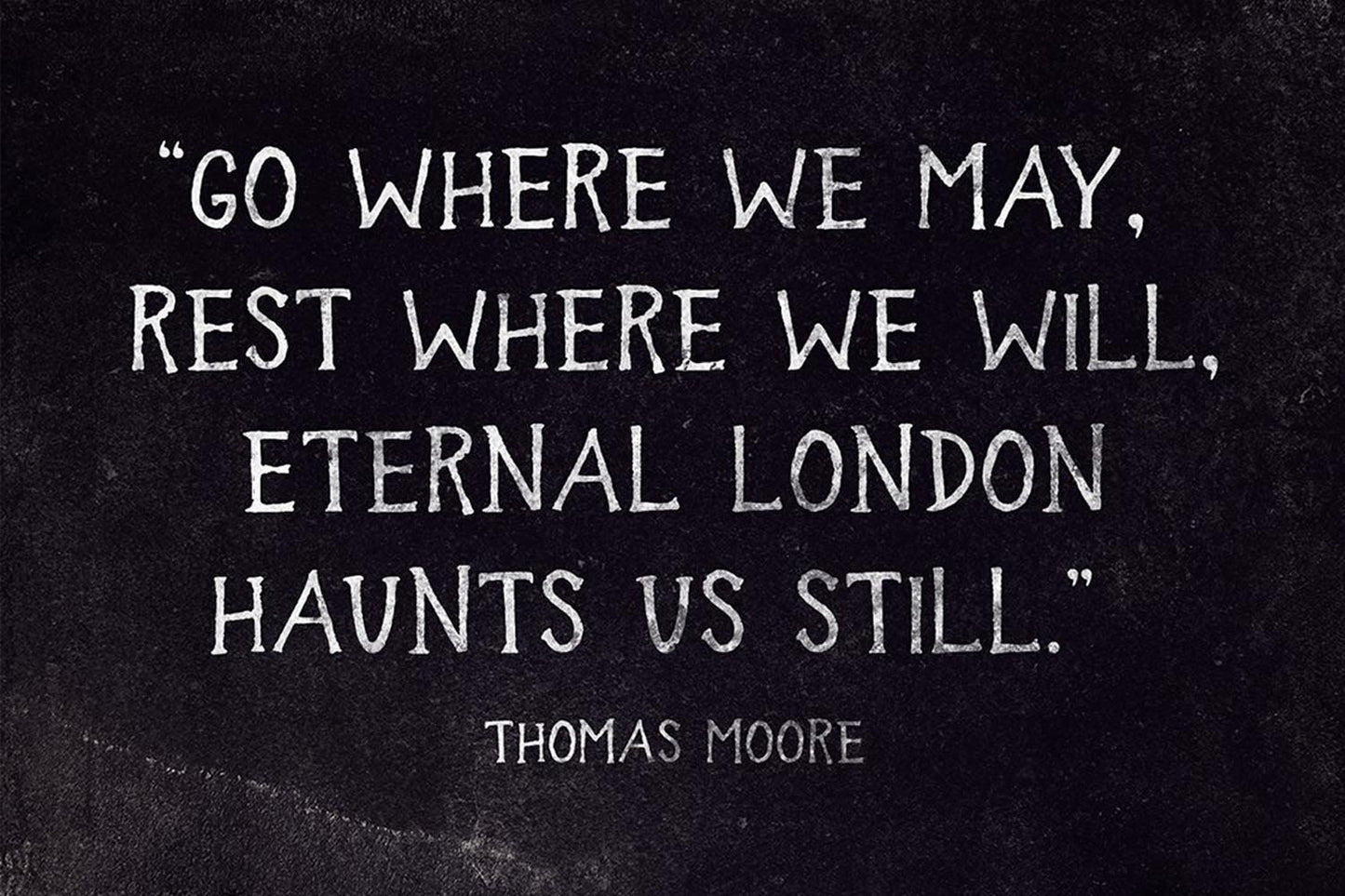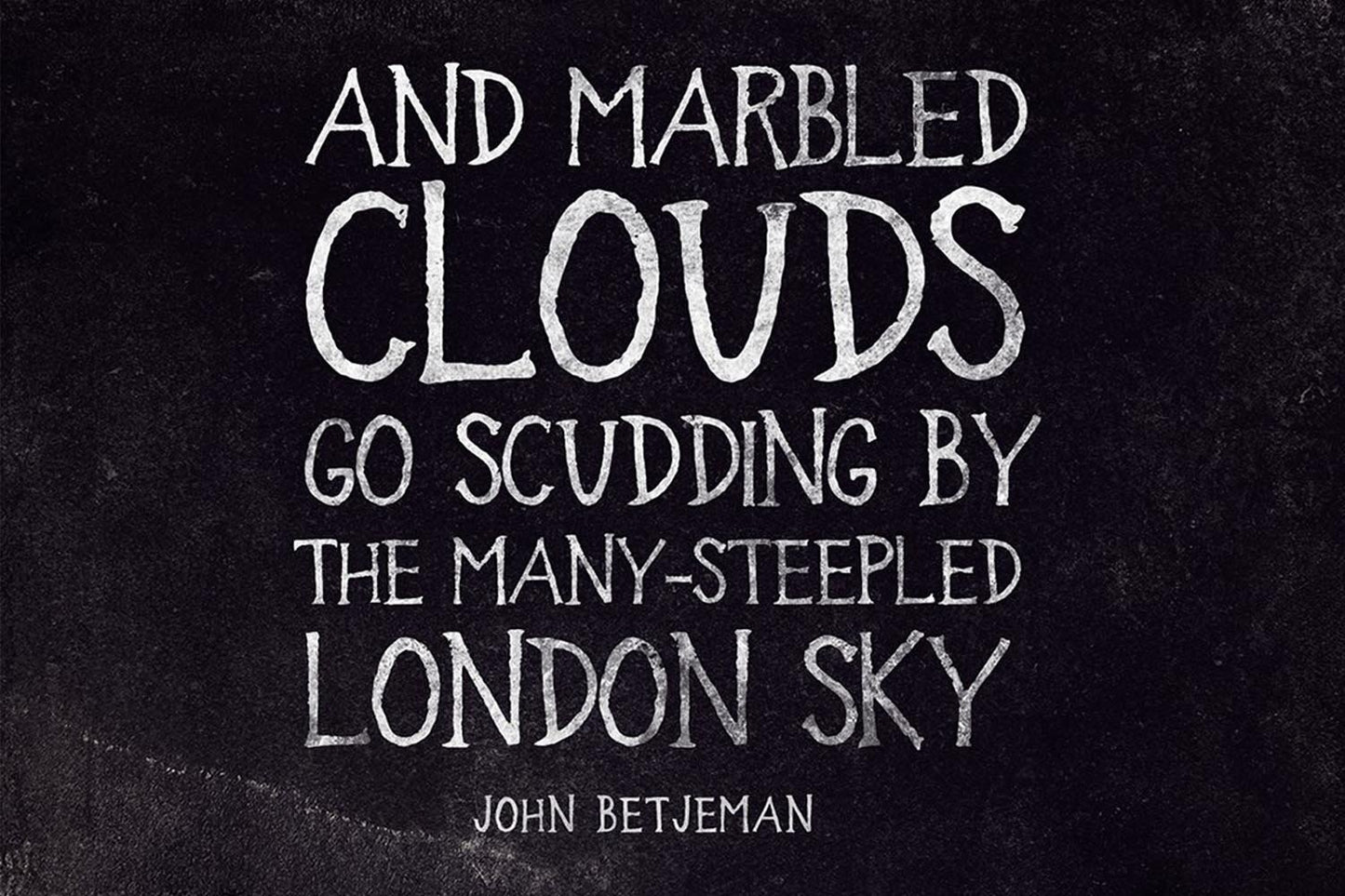
In the wood
About In the wood
In the Wood font – it's got that old-school American vibe, and the story behind it is a bit of an accident. You see, I was just doodling away on sheets of paper, experimenting with different letter shapes.
While I was messing about, the font took a dark twist into the horror genre. I mean, it's like looking at letters that were carved into creepy, weathered wood by some eerie, sinister hands. It gives off this foreboding vibe that's perfect for projects aiming to give that world of pure terror.
In a nutshell, In the Wood font is the go-to choice when you want your text to speak unsettling truths from the shadows. Or, to put it bluntly, it's got that gritty, grungy edge – just the way I like it.
If in the wood font were a celebrity
If the In the Wood font were a celebrity, it would embody the brooding and enigmatic essence of Benedict Cumberbatch. Much like the font's eerie and unsettling design, Cumberbatch is known for his ability to portray complex and mysterious characters with an air of sophistication.